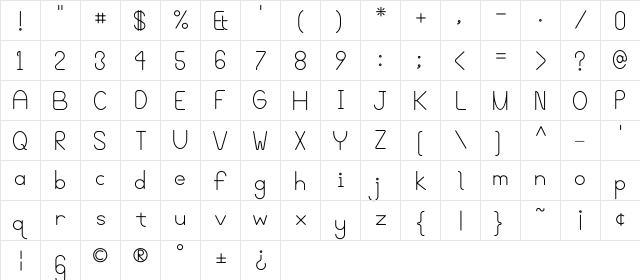
BloomingGroveAlternate Alternate
Design Context for BloomingGroveAlternate Typeface
BloomingGroveAlternate offers clean, dependable letterforms without strong stylistic allegiance, making it a practical choice for designers who need flexibility.
Pro Tip: Use BloomingGroveAlternate in both headline and body roles to test its range before committing to a single application.